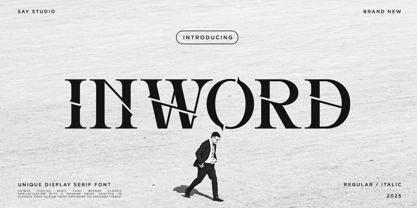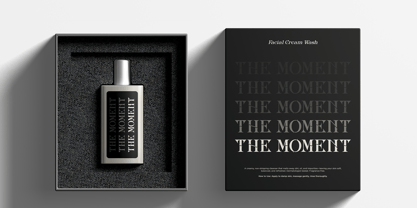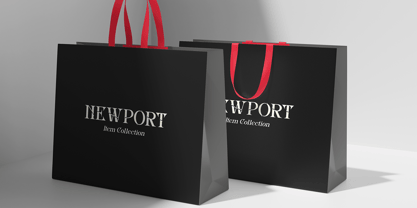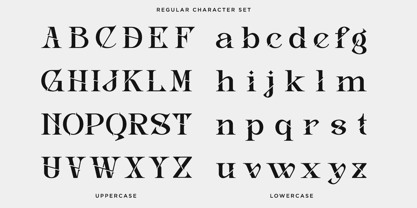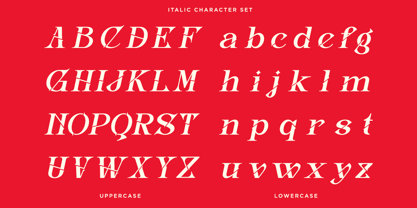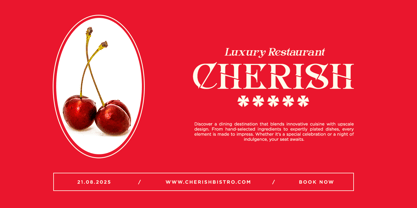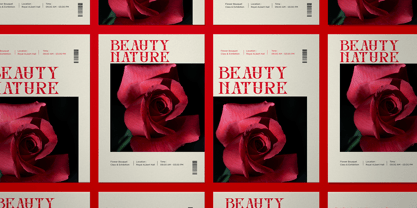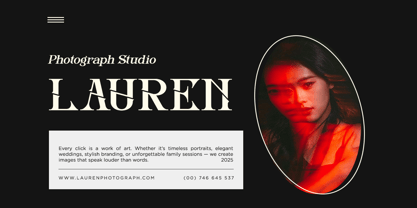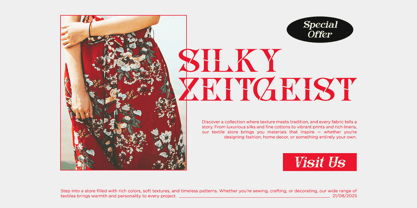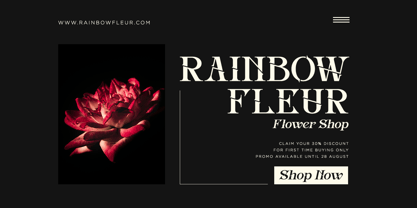
Inword
Inword is unique display serif font The pinnacle of opulent serif fonts that sexily with slice of serif style. Transform the visual identity of your brand with this gorgeous typeface, which was painstakingly designed to radiate sophistication and grandeur. This typeface is perfect for an elegant logo, branding, fashion brand, luxury brand, layout magazine, beauty product, packaging product, perfume, quotes, or simply as a stylish text overlay to any background image. What's Included? - Inword Regular - Inword Italic - Multilingual Support Thanks, have a nice day Say Studio